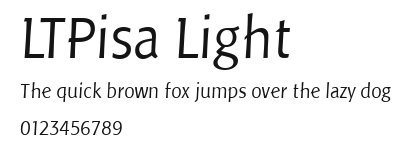
• Font Name: LTPisa Light
• Full Font Name: Linotype Pisa Light
• Manufacturer: Linotype Library GmbH
About LTPisa Light.ttf
LTPisa Light.ttf is a modern, elegant sans-serif font designed for ultimate readability and visual harmony. Perfect for branding, headlines, web design, and print materials.